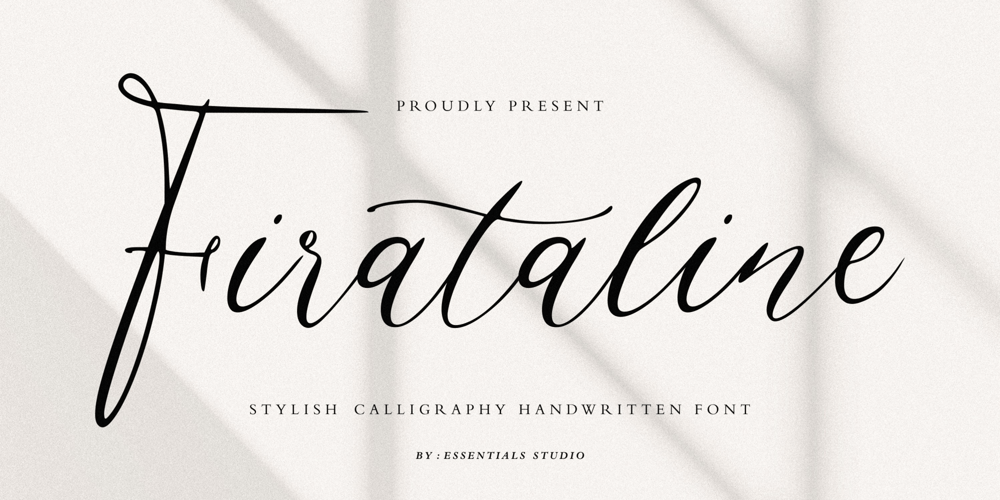
Firataline Font Family was designed by Sulthan Mada Maulana Tsani and published by Essentials Studio. Firataline contains 1 styles and family package options. Firataline Is a Stylish Calligraphy Handwritten Font.Firataline is perfect for product packaging, branding project, magazines, social media, weddings, or just used to express words above the background.